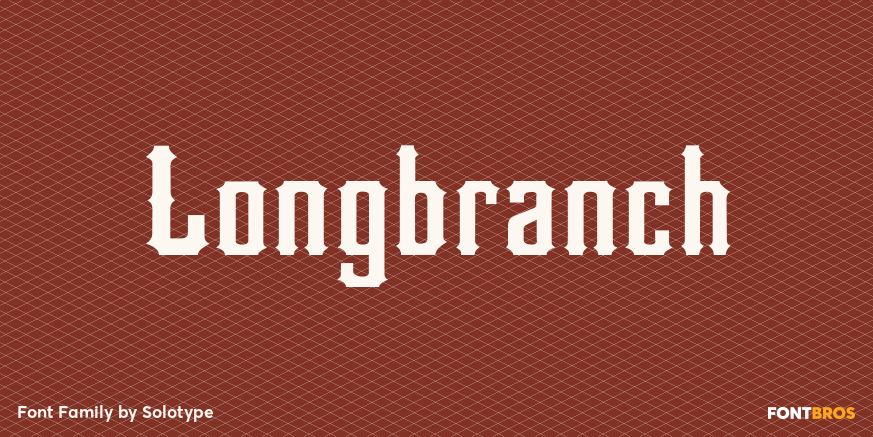
Longbranch
About Longbranch
A modern cutting designed to give the appearance of an old wood type. The letters were cut as linoleum blocks about 2 inches high, then duplicated as copper electrotypes. Used for some Ringling Bros. circus work.